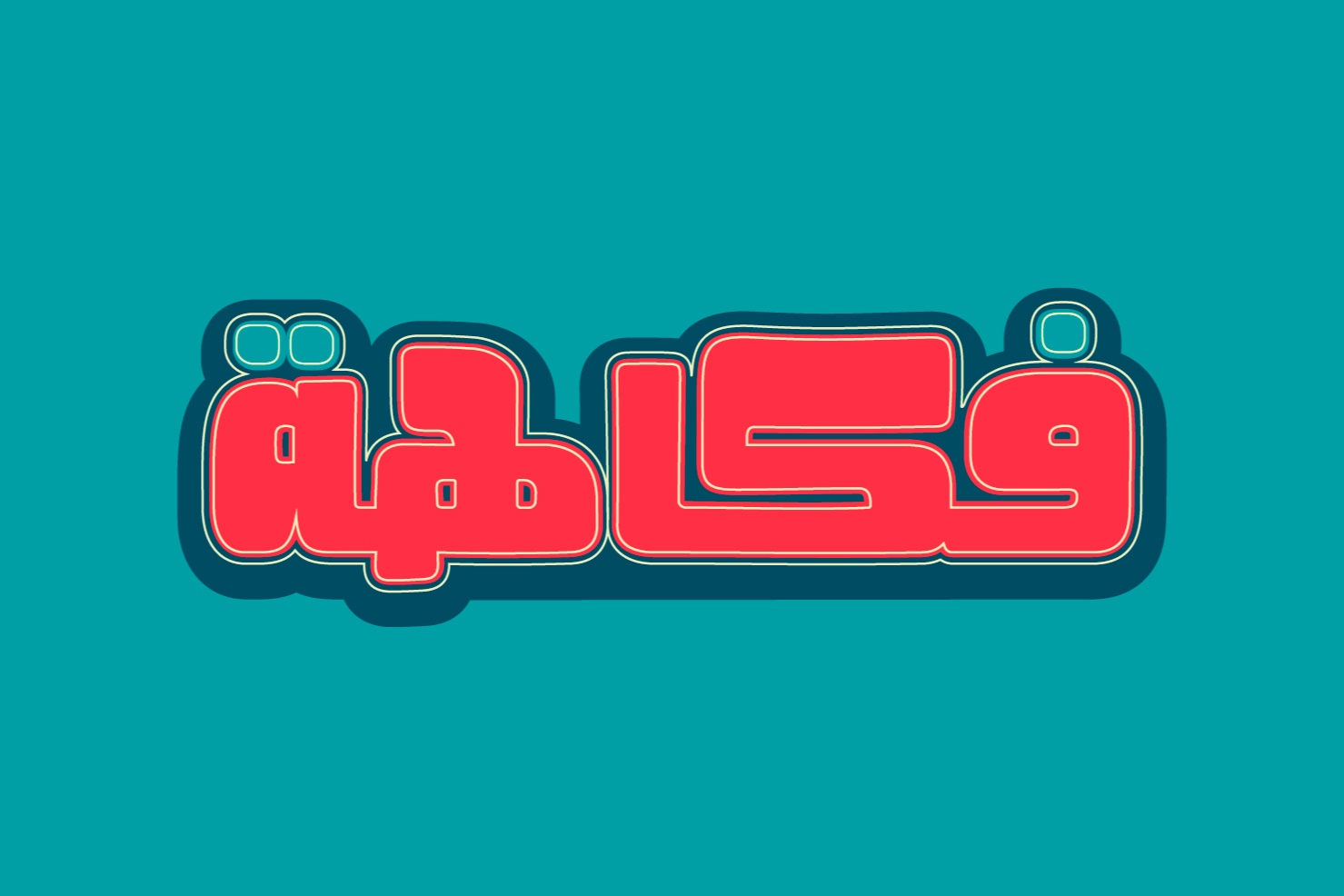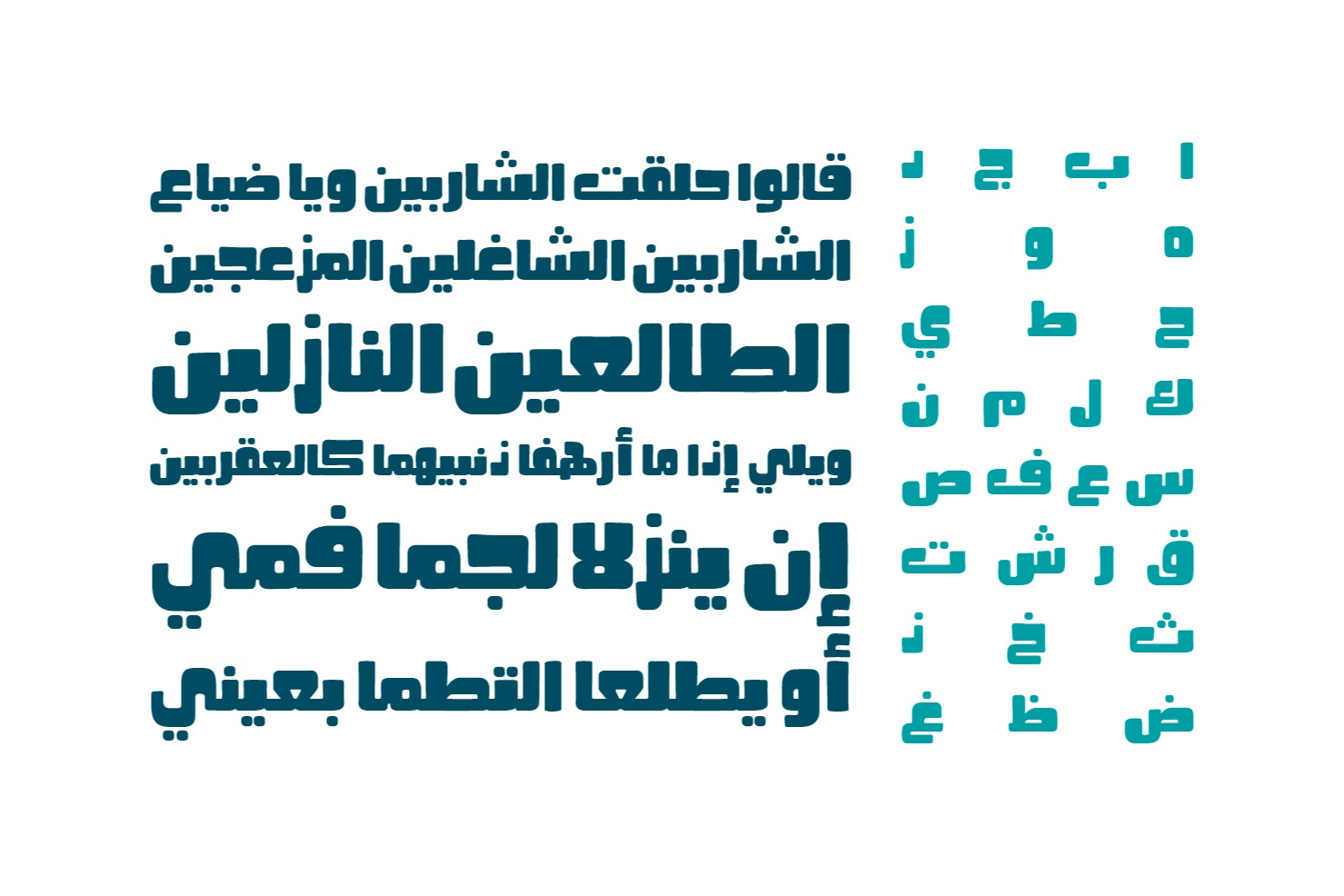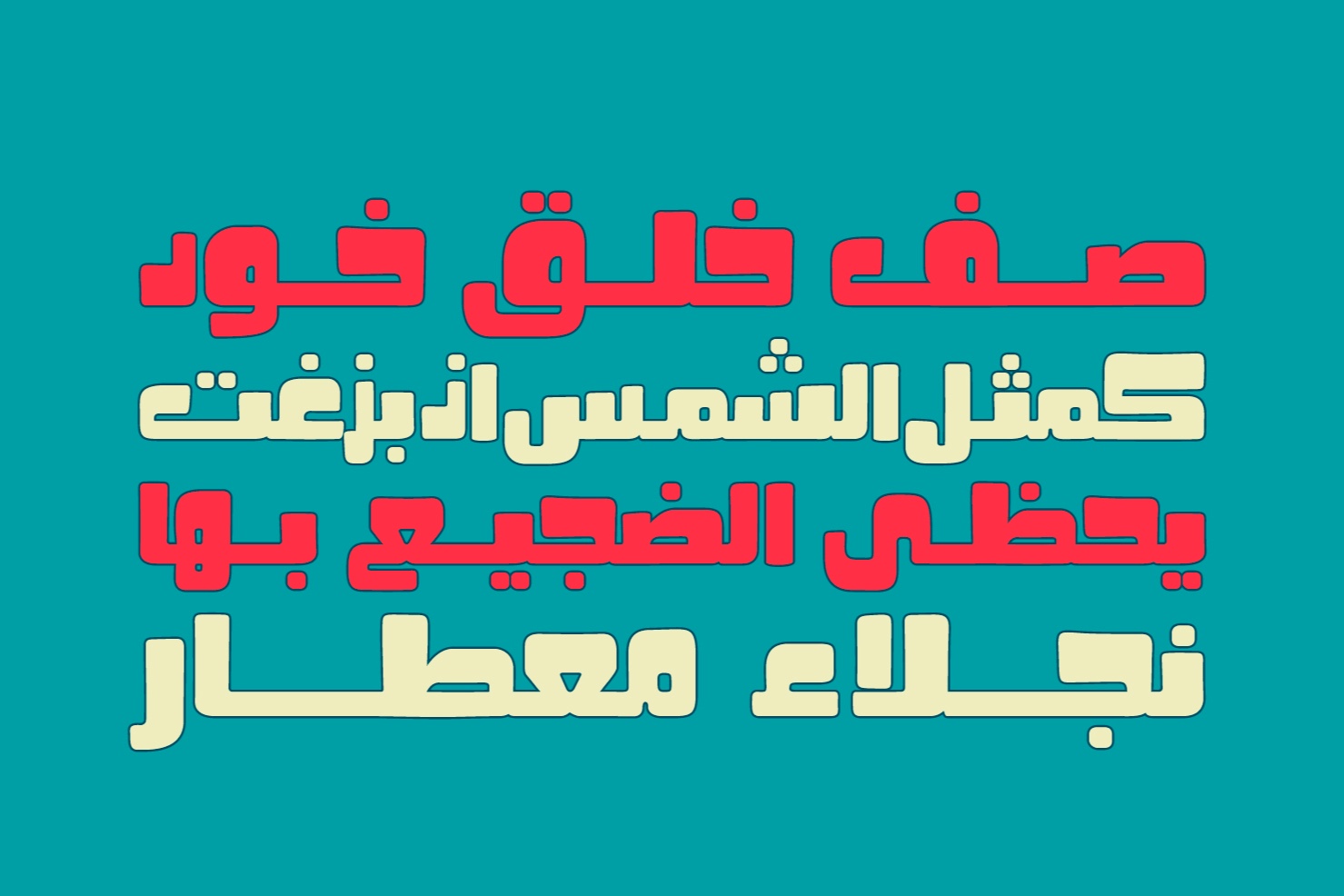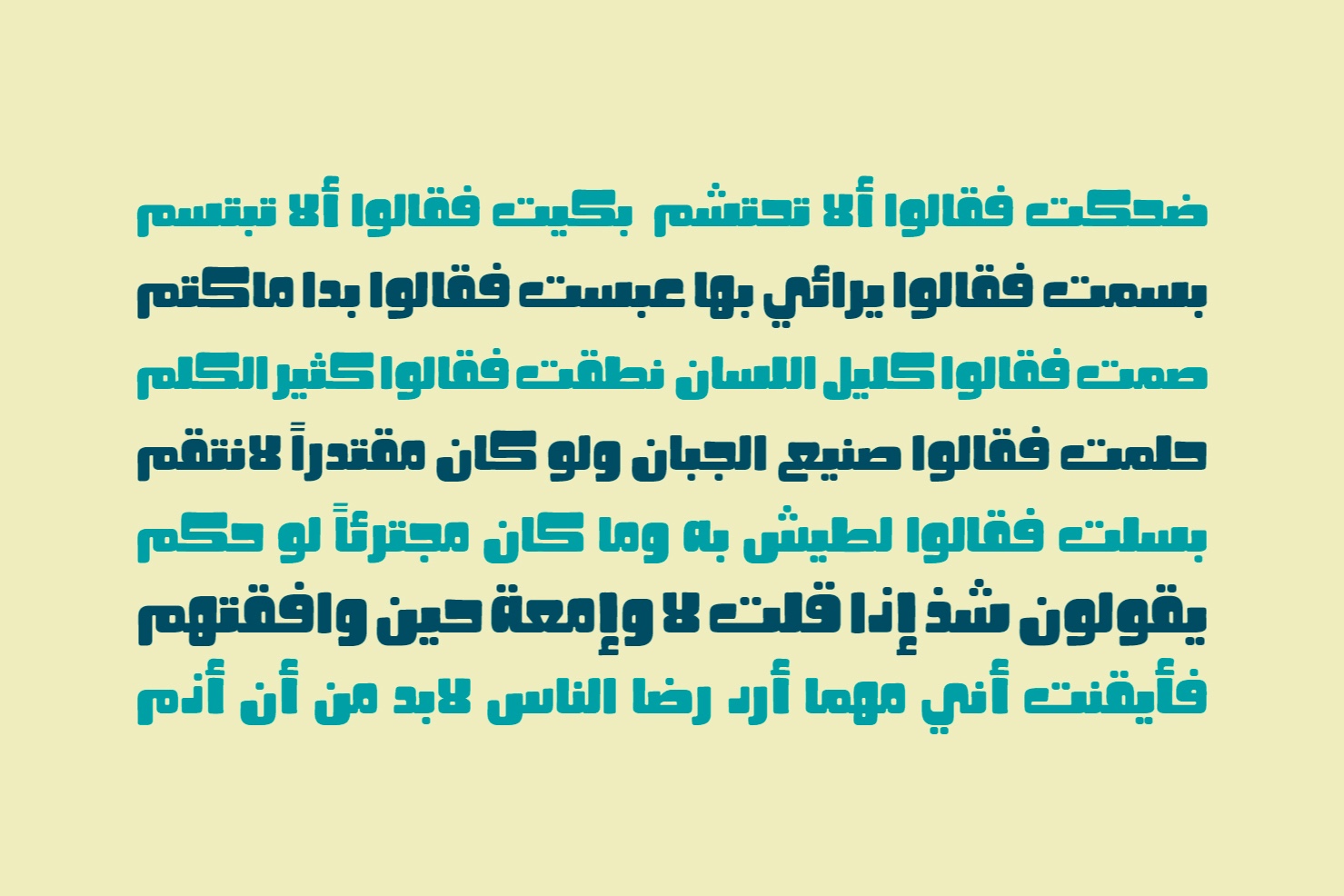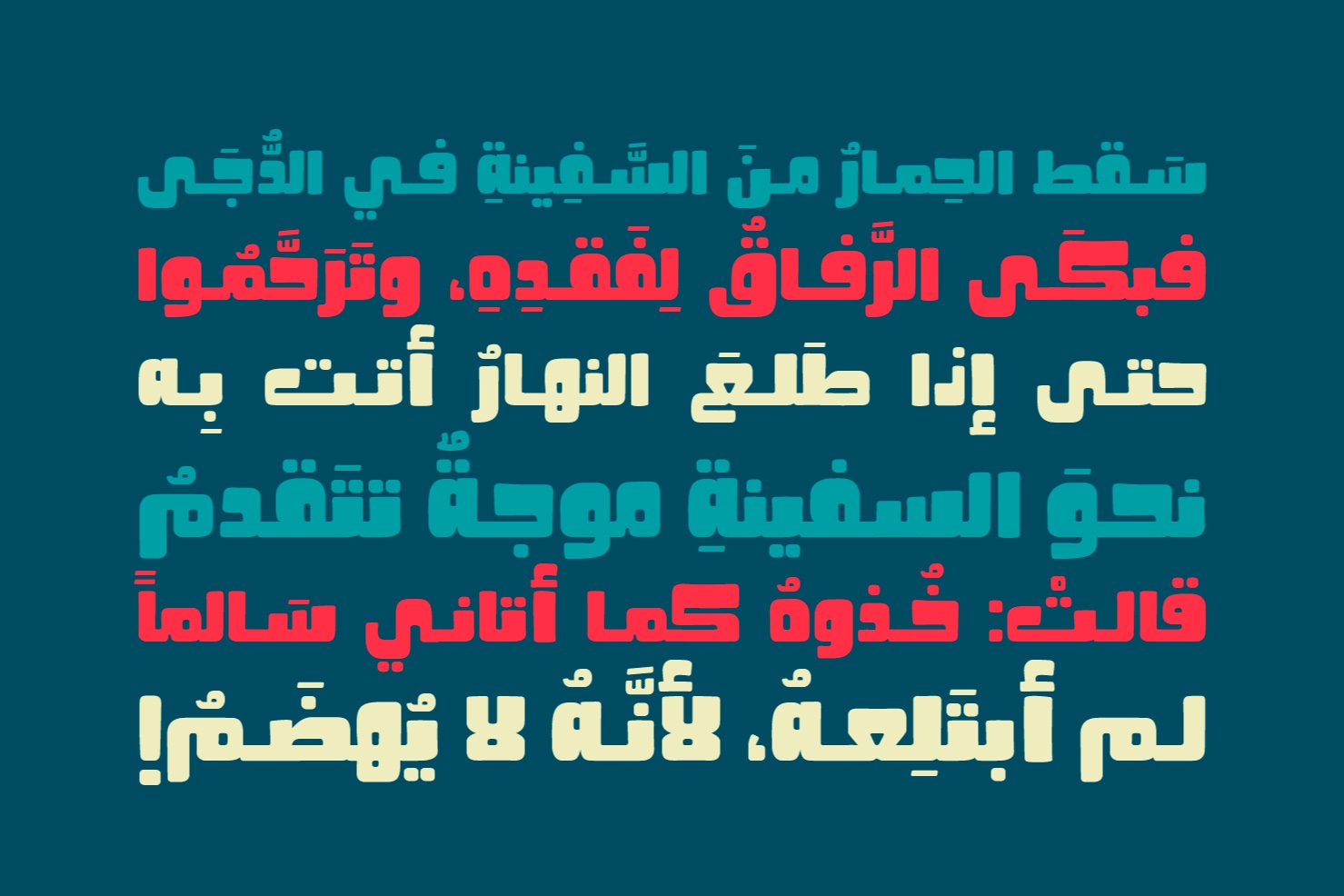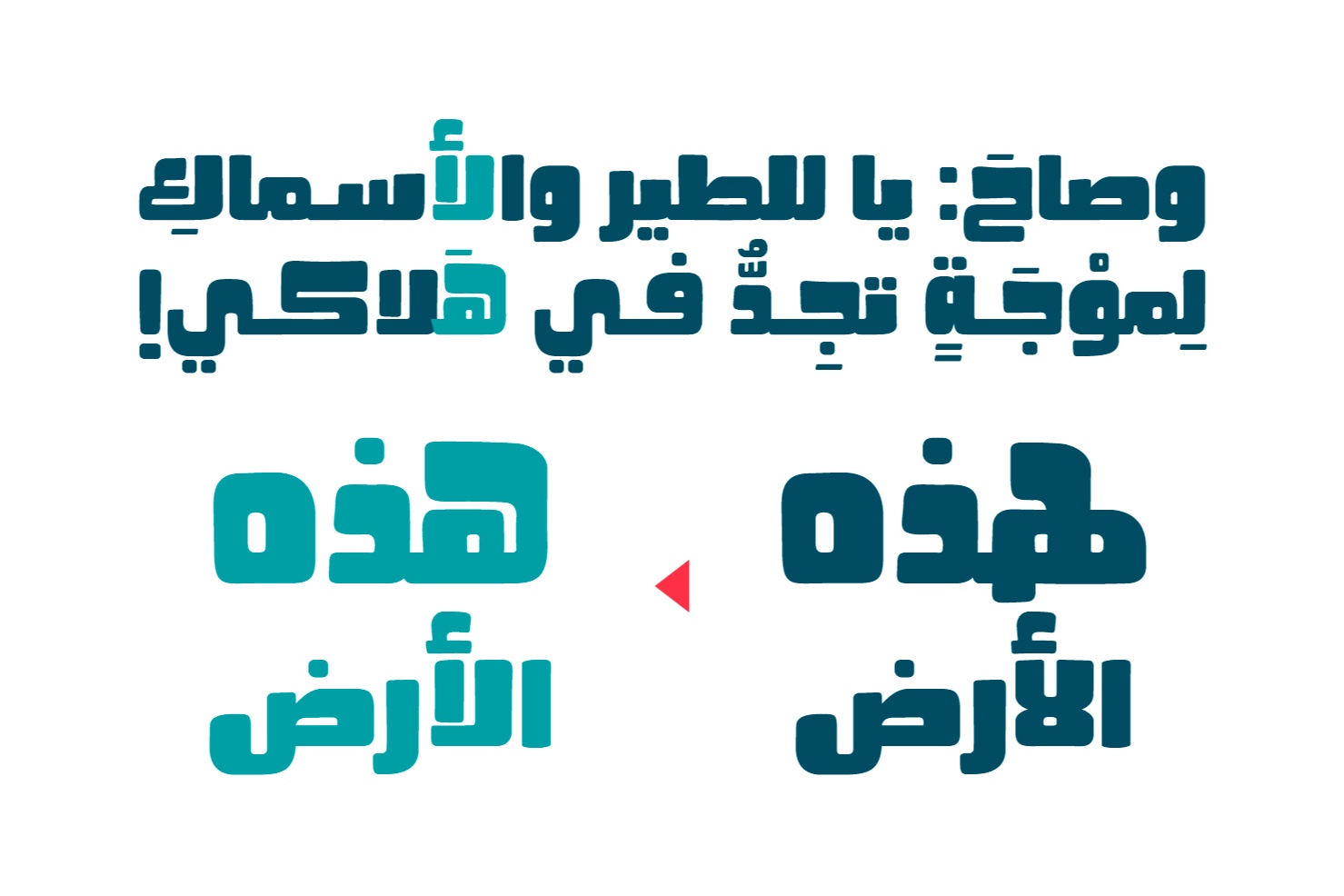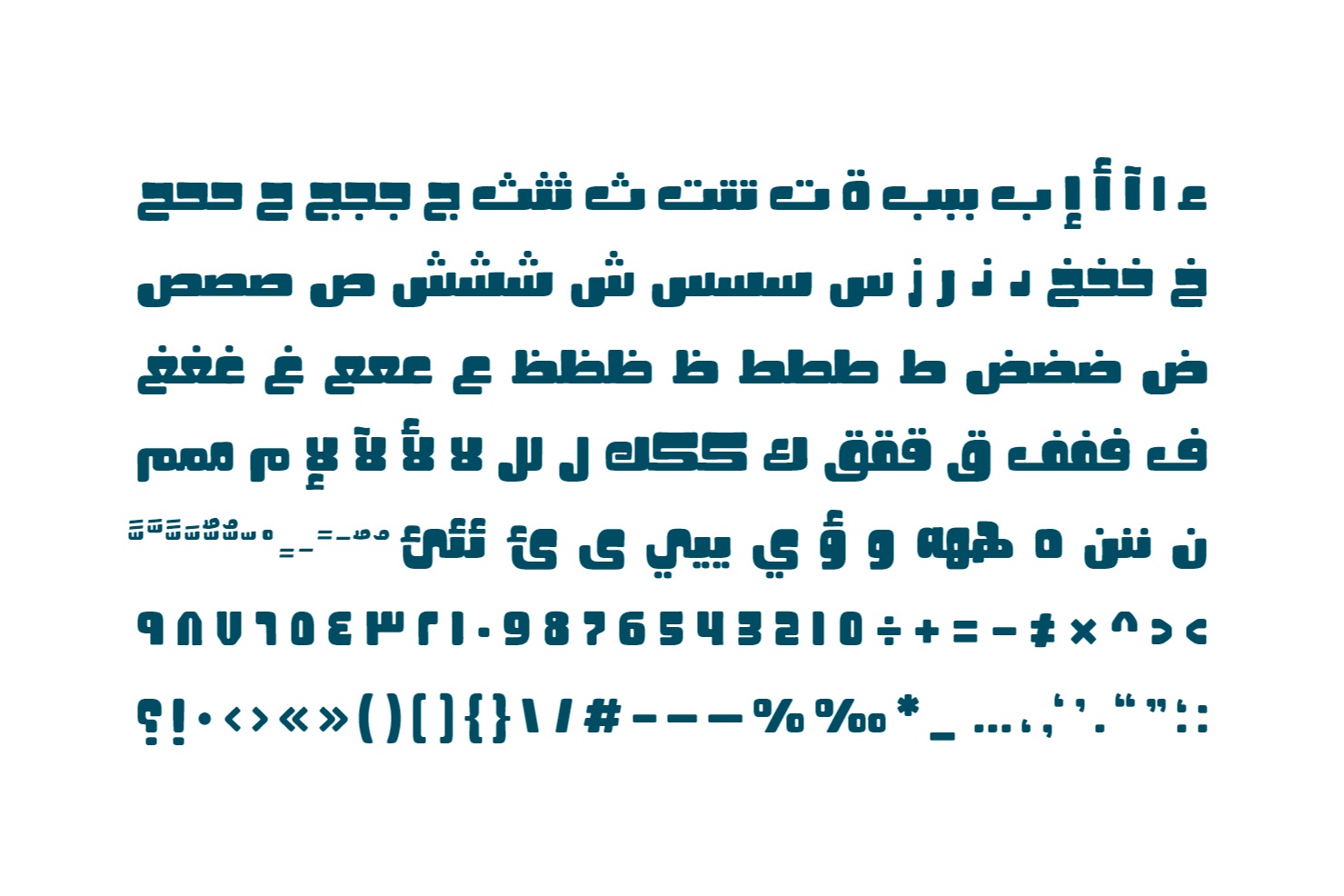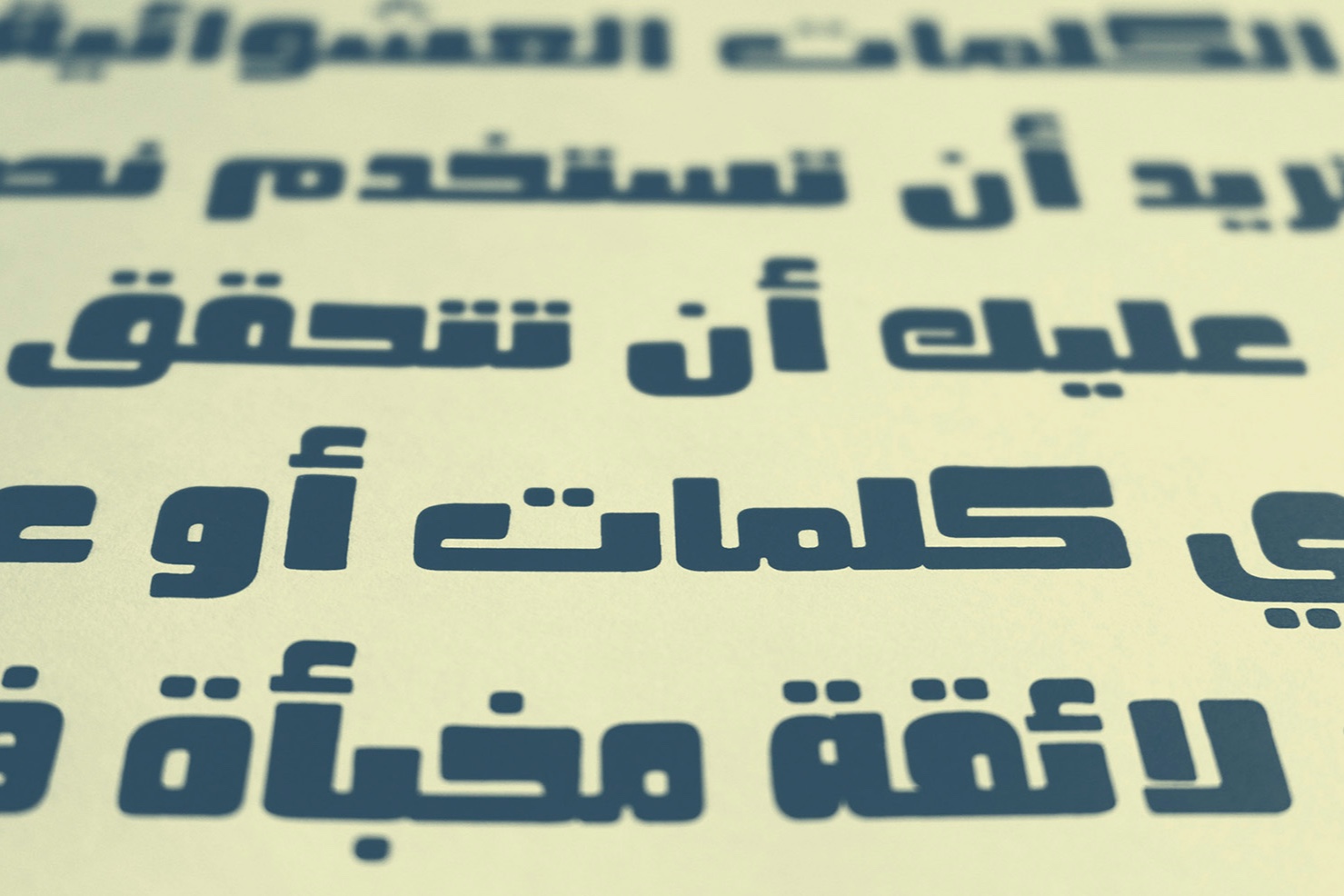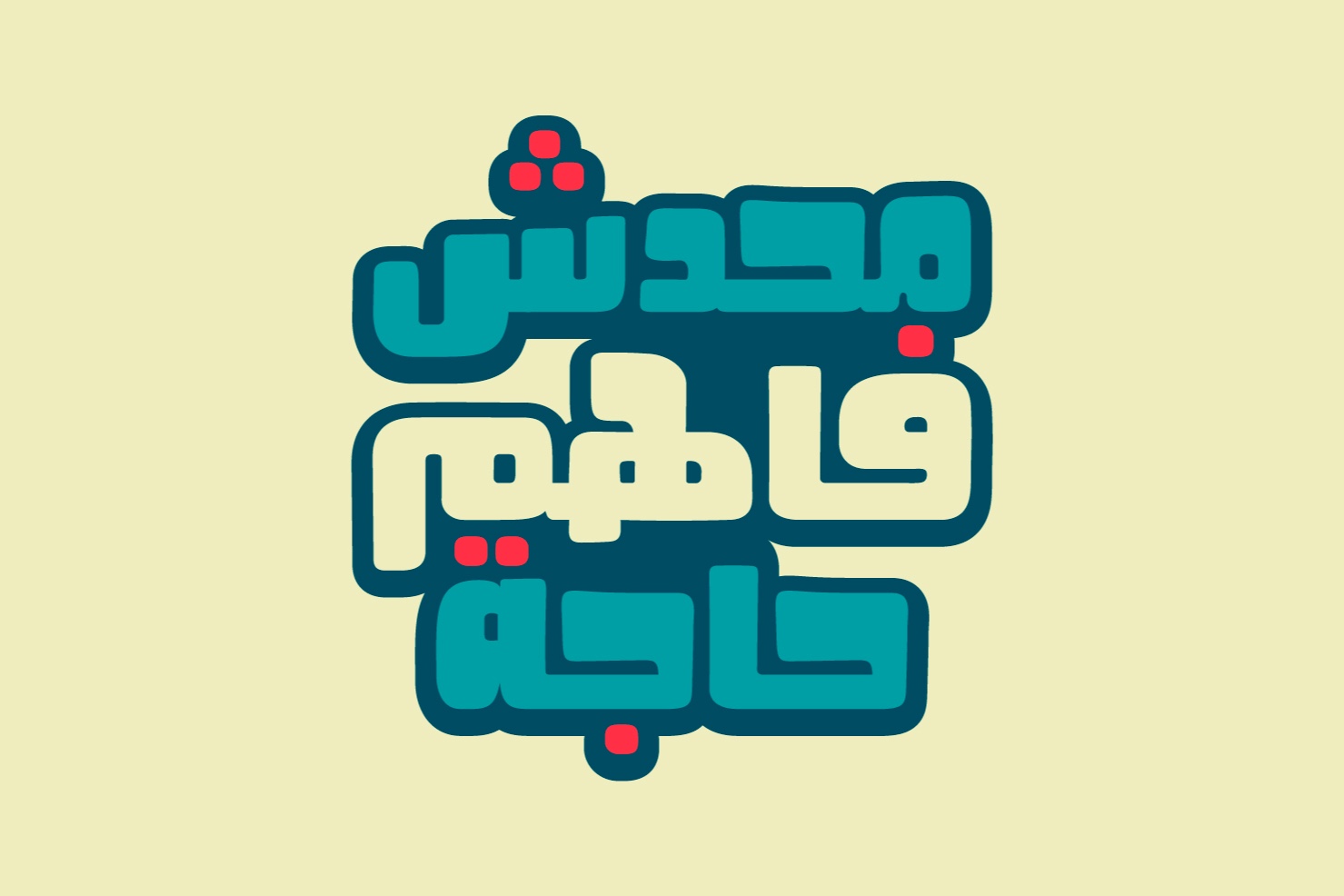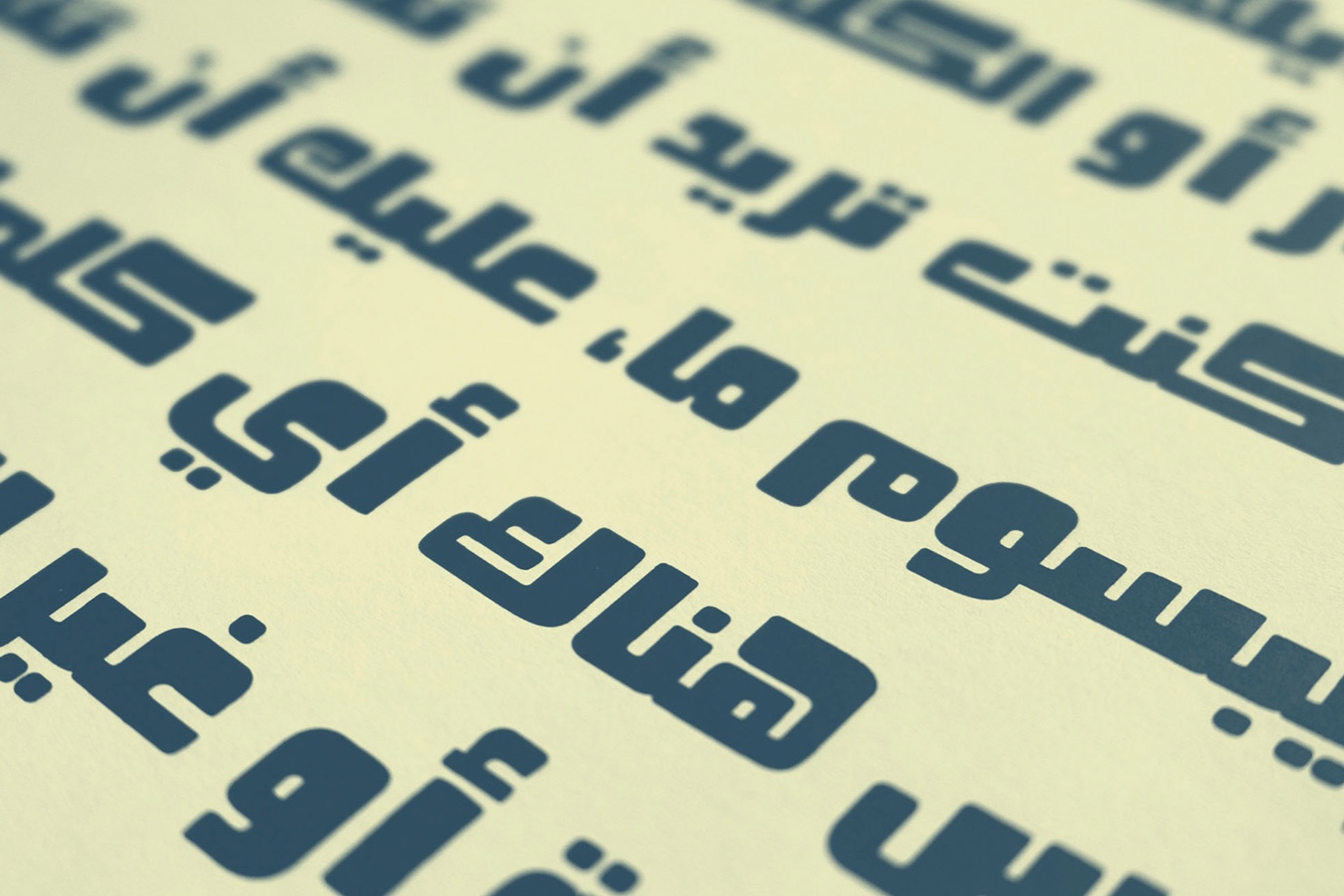
Fokaha, derived from the Arabic term for humor, is a distinctive Arabic display font characterized by its geometric design that conveys a playful tone. It is versatile and suitable for a wide array of uses, including print media, websites, and advertising.